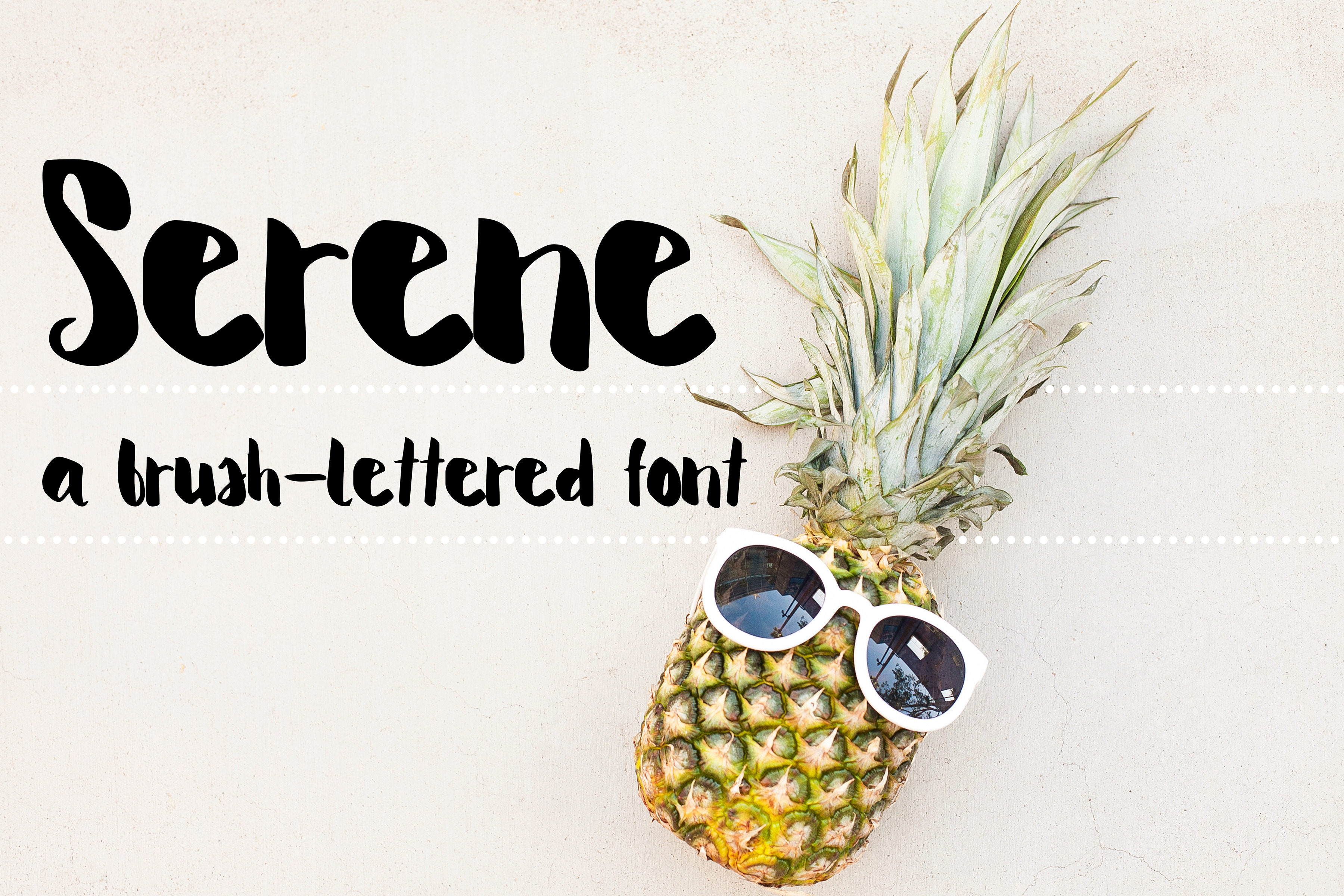
SERENE Brush Lettered Font
Meet Serene! A hand-lettered font that's got a personality! Chunky and not without her quirks, Serene has a full alphabet, symbols, and numbers. Available in TTF file.